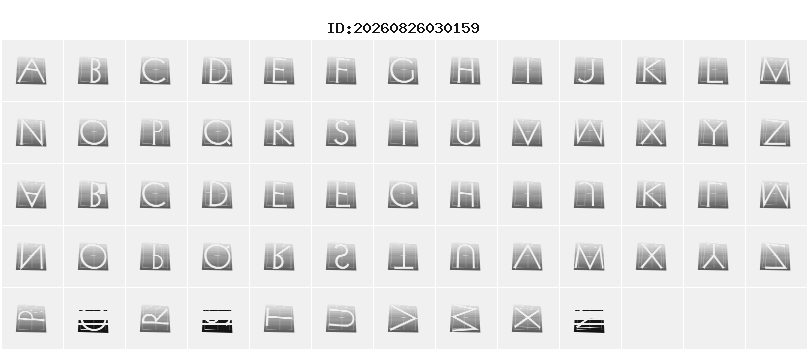
About XperimentypoTwoStripes.ttf
XperimentypoTwoStripes.ttf is a modern, elegant sans-serif font designed for ultimate readability and visual harmony. Perfect for branding, headlines, web design, and print materials.